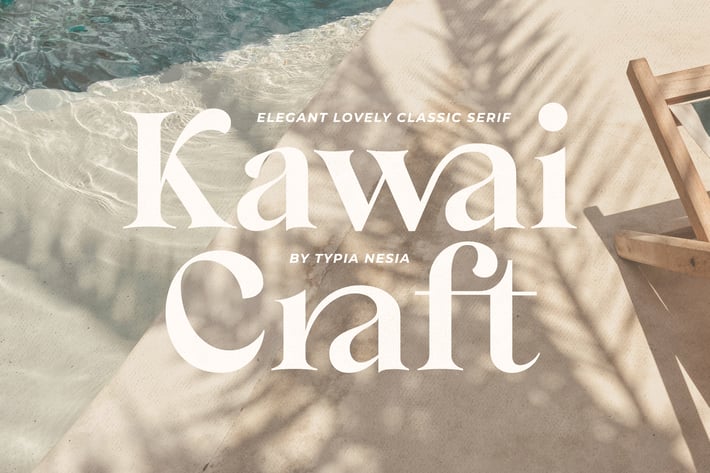
Kawai Craft - Vintage / Retro Serif Bold Font
Kawai Craft - Classic Retro Display Serif - Fantasy Vintage Bold Font
Kawai Craft comes with some ligatures, so you can combine it to make a perfect typography design. Suitable for any design needs : logo, branding, modern advertising design, vintage garage design, adventure / mountain hiking brand, hardcore music, animation or movie, logos, retro summer poster quote, book / novel cover Title, editorial design, website / blog, card, and any Italic hand-lettered needs.